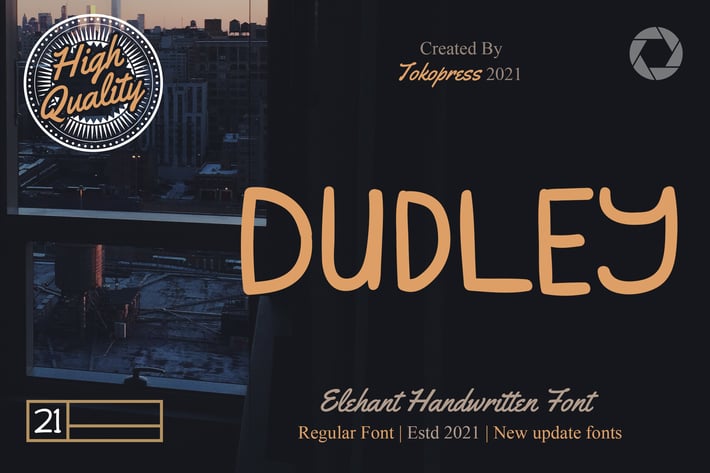
DUDLEY - Classy handwriting font
Dudley - Elegant Handwriting Font
DUDLEY is a classy handwriting-style display typeface with clean strokes, rounded flow, and a casual elegance that brings warmth to any layout. With soft terminals and natural rhythm, it captures the vibe of modern brush scripts—versatile for both upscale restaurant menus and laid-back branding needs. Its semi-formal structure creates balance between legibility and character, making it usable for digital and print storytelling alike.
From café chalkboards to gourmet product labels, DUDLEY invites a handcrafted, friendly tone that feels both professional and approachable. It’s perfect for restaurant menus, boutique branding, thank-you cards, wedding save-the-dates, and even Instagram quote designs. If you're building a brand with personality—warm, elegant, yet casual—DUDLEY instantly connects with your audience.
Key Features :
Natural Script Vibe
Designed to mimic personal handwriting with smooth curves and relaxed flow.
Modern Yet Familiar
Balanced between stylish and legible—great for food branding, fashion tags, and signage.
* Clean Yet Expressive
Simple enough for body text, expressive enough for display purposes.